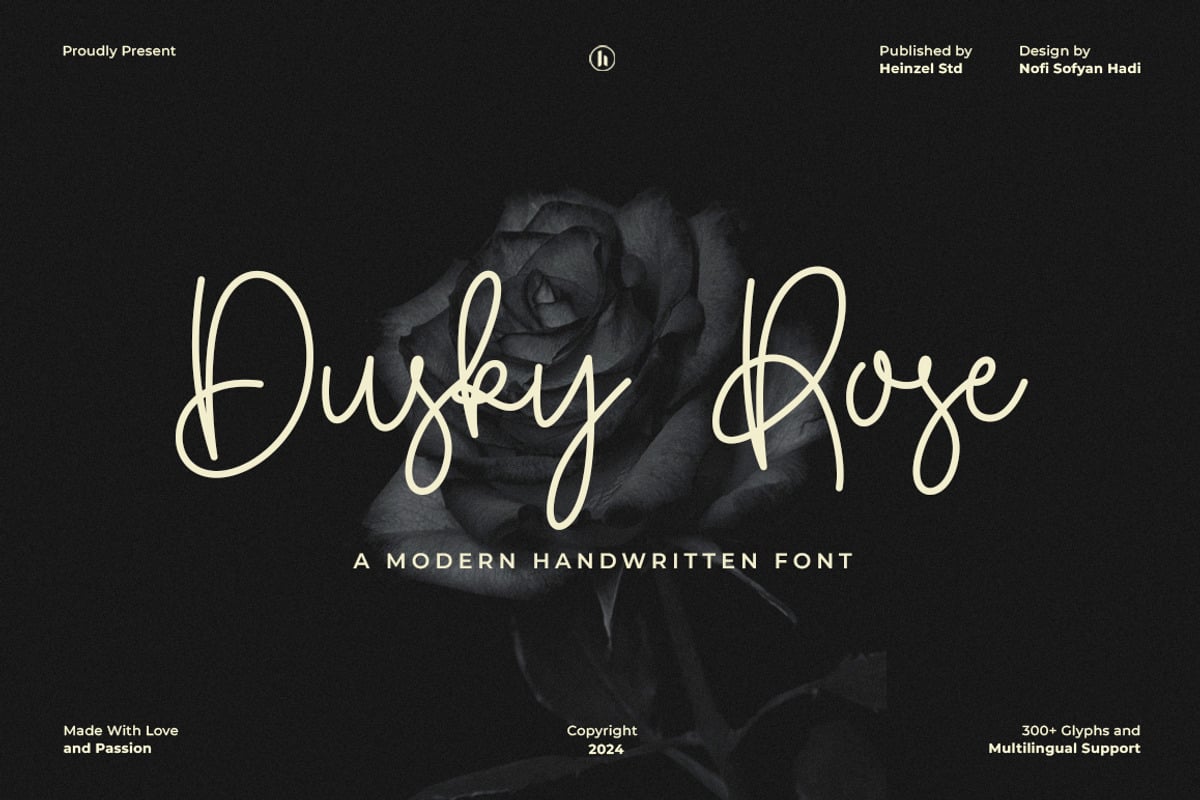
Dusky Rose Handwritten Font
Dusky Rose is the flowing, elegant handwritten font your most beautiful projects have been waiting for.
With its timeless, distinctive style and graceful letterforms, Dusky Rose brings an authentic handcrafted feel to any design. Whether you're crafting wedding invitations, thank you cards, greeting cards, logos, or business cards — this typeface delivers effortless elegance every time.
Dusky Rose Features:
- Uppercase and Lowercase characters
- Numerals and Punctuations
- Multilingual Support (21 languages)